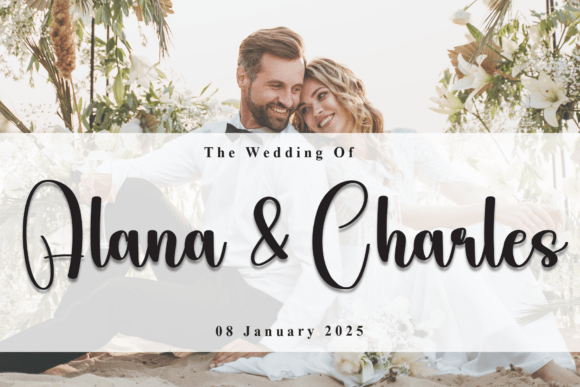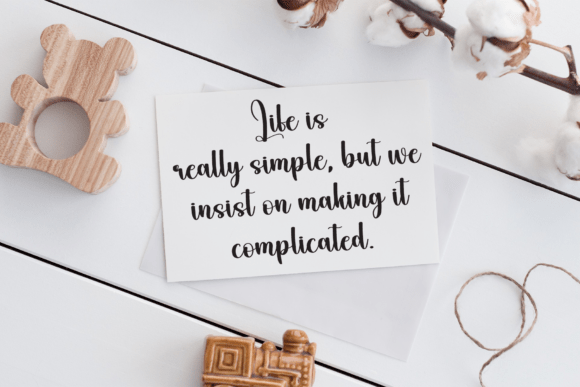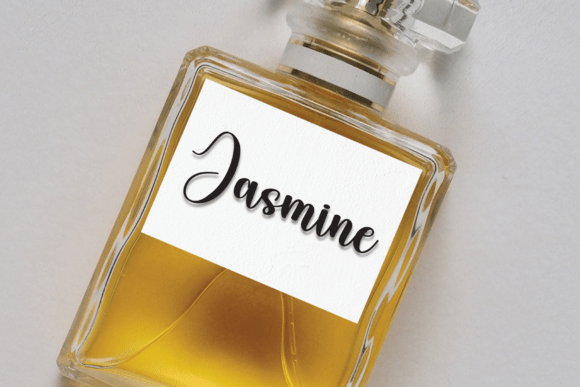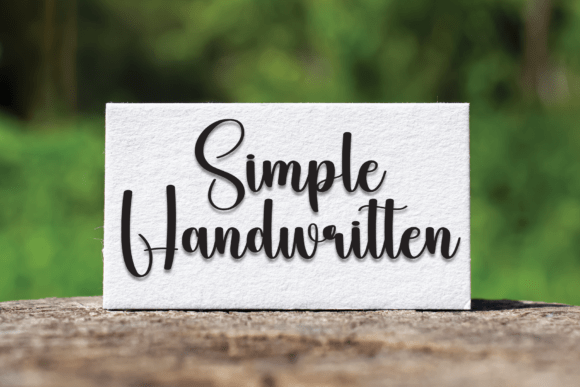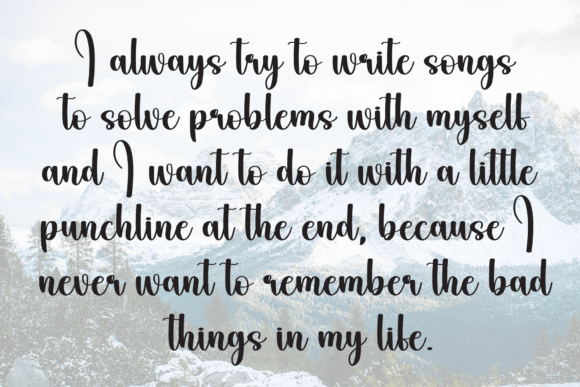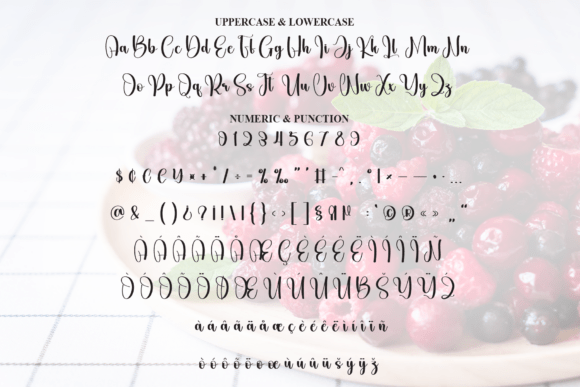
Berry Font: Elevate Your Design with Elegance and Charm
Are you looking for a font that adds a touch of sophistication and refinement to your design? Look no further than Berry Font, a stylish handwritten script font that exudes elegance and charm. With its fluid, graceful strokes, Berry Font is perfect for designers and crafters who want to create beautiful branding, invitations, and stationery that stand out from the crowd.
The Characteristics of Berry Font
Berry Font is a handwritten script font that boasts smooth curves and a natural flow, creating a timeless and refined look for any design. Its fluid strokes and elegant letterforms make it perfect for a variety of design applications, from luxury branding to wedding invitations and stationery. The font’s refined appearance is sure to add a personal and sophisticated touch to any project.
Perfect for Branding
When it comes to branding, the right font can make all the difference. Berry Font is an excellent choice for businesses that want to convey a sense of elegance and sophistication. Whether you’re creating a logo, business card, or website, Berry Font is sure to elevate your brand and make it stand out from the competition. Its refined appearance and smooth curves create a lasting impression, making it perfect for high-end brands and businesses that want to exude luxury and refinement.
Ideal for Invitations and Stationery
Berry Font is also perfect for designers and crafters who create invitations and stationery. Its elegant letterforms and fluid strokes make it ideal for wedding invitations, birthday cards, and other special occasions. The font’s refined appearance adds a touch of sophistication and elegance to any design, making it perfect for formal events and celebrations. Whether you’re creating a custom invitation or a set of stationery, Berry Font is sure to add a personal and stylish touch.
Why Choose Berry Font?
So why choose Berry Font over other fonts? Here are just a few reasons why designers and crafters love this stylish handwritten script font:
- Elegance and charm: Berry Font exudes elegance and charm, making it perfect for designers and crafters who want to create beautiful and refined designs.
- Fluid strokes: The font’s fluid strokes and smooth curves create a natural flow that’s perfect for a variety of design applications.
- Timeless look: Berry Font has a timeless look that’s sure to remain stylish for years to come.
- Versatility: The font is versatile and can be used for a variety of design applications, from branding to invitations and stationery.
Tips for Using Berry Font
Here are a few tips for using Berry Font in your designs:
- Pair with a sans-serif font: Berry Font pairs perfectly with sans-serif fonts, creating a beautiful contrast that’s perfect for headings and body text.
- Use for headlines and titles: The font’s elegant letterforms make it perfect for headlines and titles, adding a touch of sophistication and elegance to any design.
- Experiment with colors: Berry Font looks beautiful in a variety of colors, from bold and bright to soft and pastel.
In conclusion, Berry Font is a stylish handwritten script font that’s perfect for designers and crafters who want to add a touch of elegance and charm to their designs. With its fluid strokes, smooth curves, and timeless look, Berry Font is ideal for branding, invitations, and stationery. Whether you’re creating a luxury brand or a custom invitation, Berry Font is sure to elevate your design and make it stand out from the crowd.